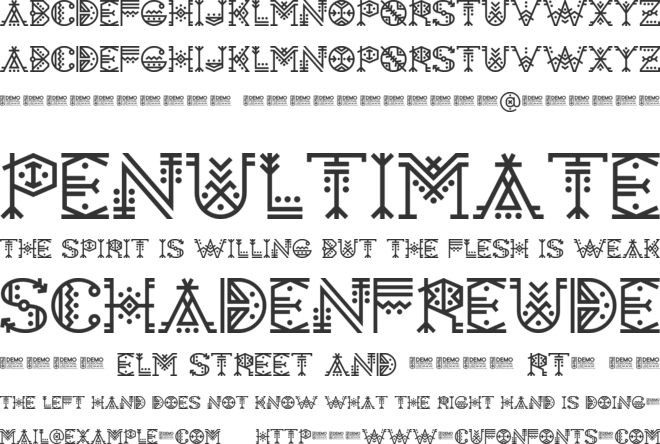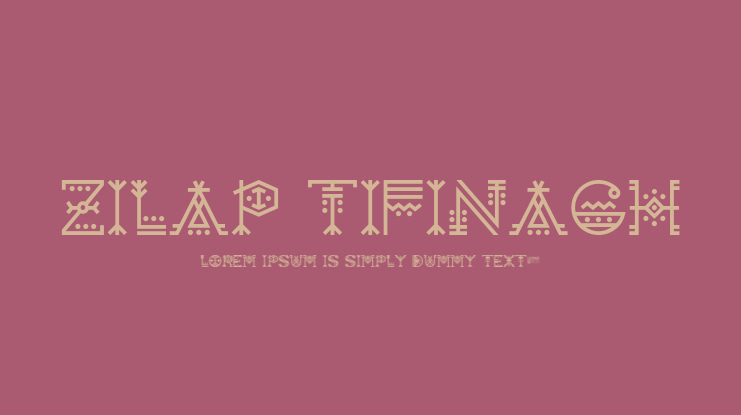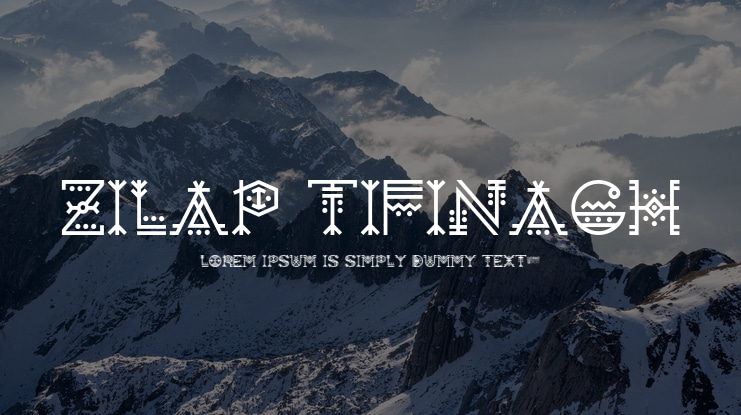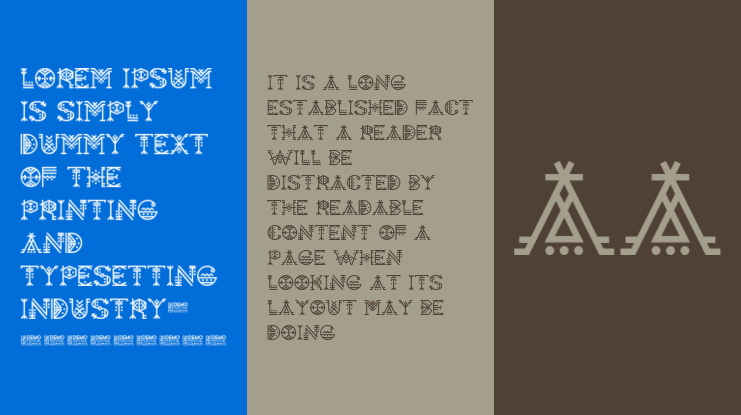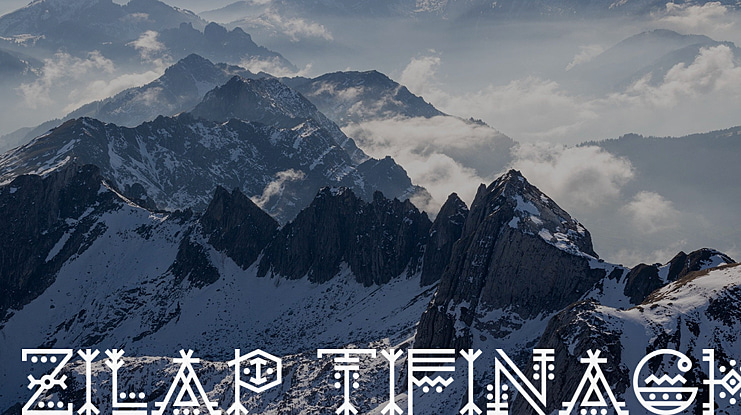
Zilap Tifinagh Font
ZILAP TININAGH / Personal Use / Inspired by the ancient Tifinagh in the Tuareg-Berbers, sign language and codes that originate hieroglyphics.
The oldest form of Tifinag is called the Libyan or Berber-Libyan alphabet, the use of which has been documented since the 3rd century BC. until the 3rd century AD throughout North Africa and in the Canary Islands.
The name or word is derived from the word "Fenag" which means: gift, female historical heritage.